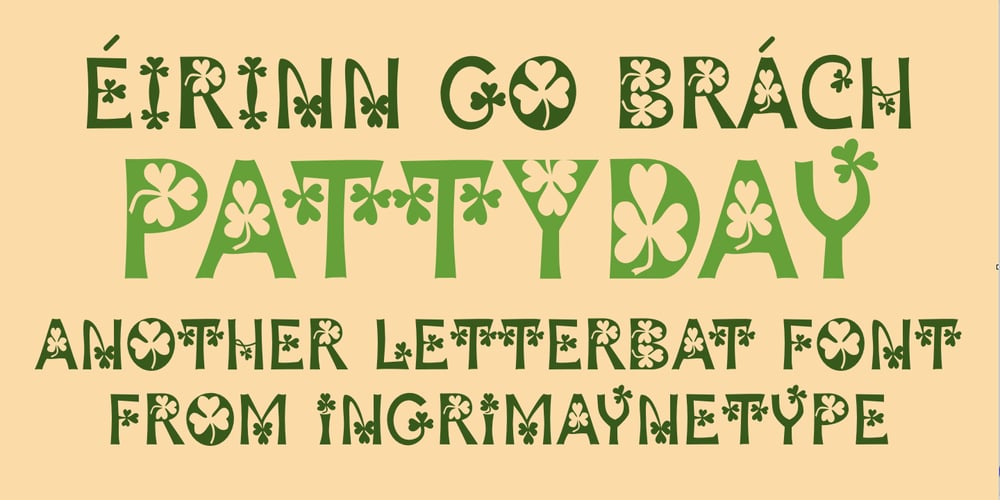
Patty Day Font Family was designed by Robert Schenk and published by Ingrimayne Type. Patty Day contains 1 styles and family package options. March may be a good time to use this typeface. PattyDay is a caps-only typeface in which the letters are decorated with shamrocks or clovers. Some but not all of the lower-case letters are different from the upper-case letters.If you want a version of this face without the shamrocks, try Ingone.